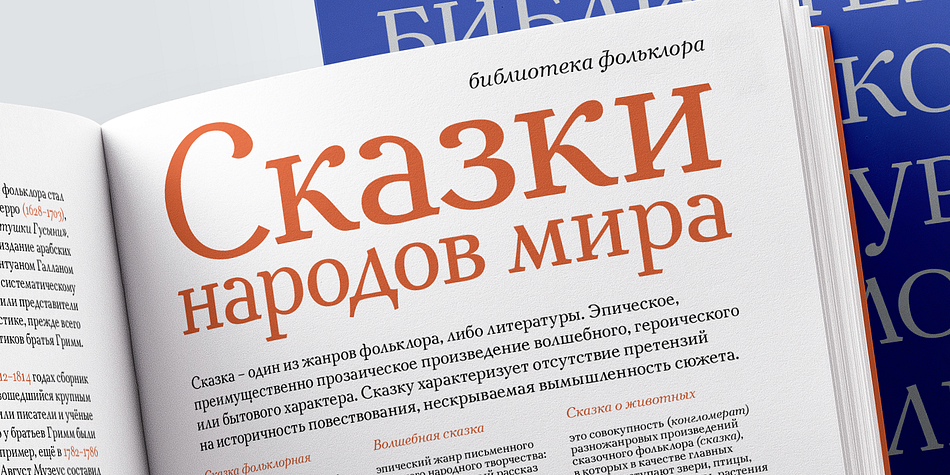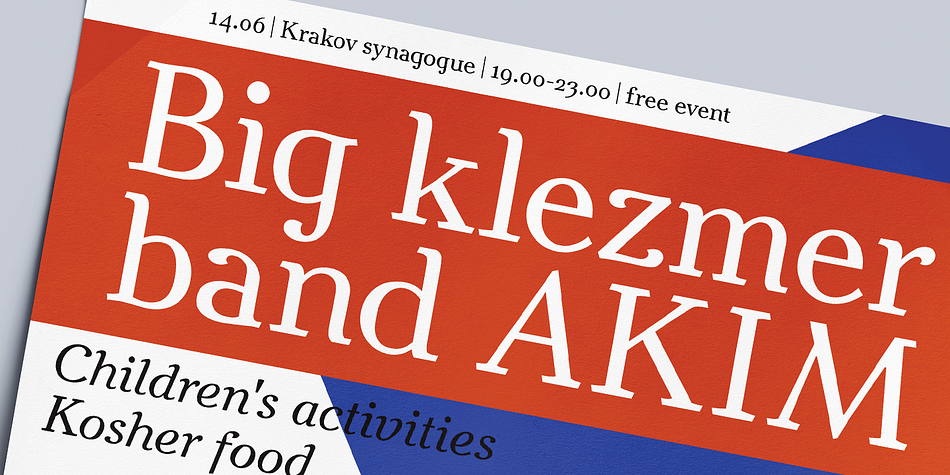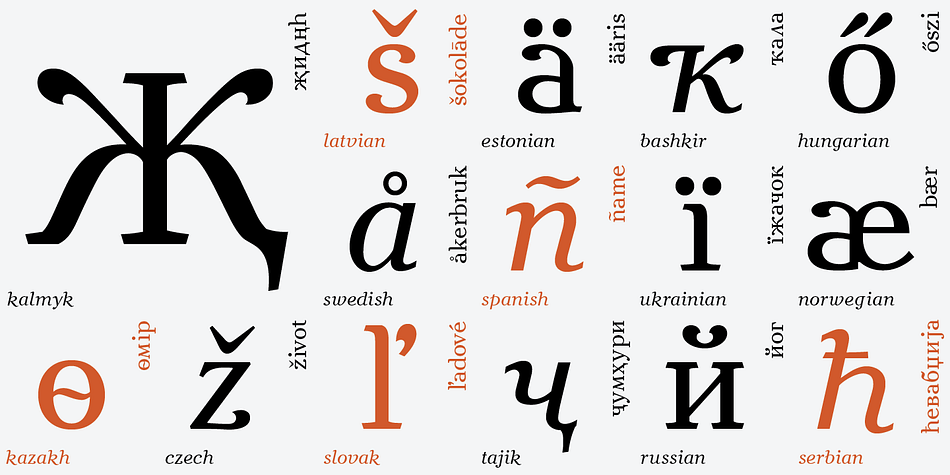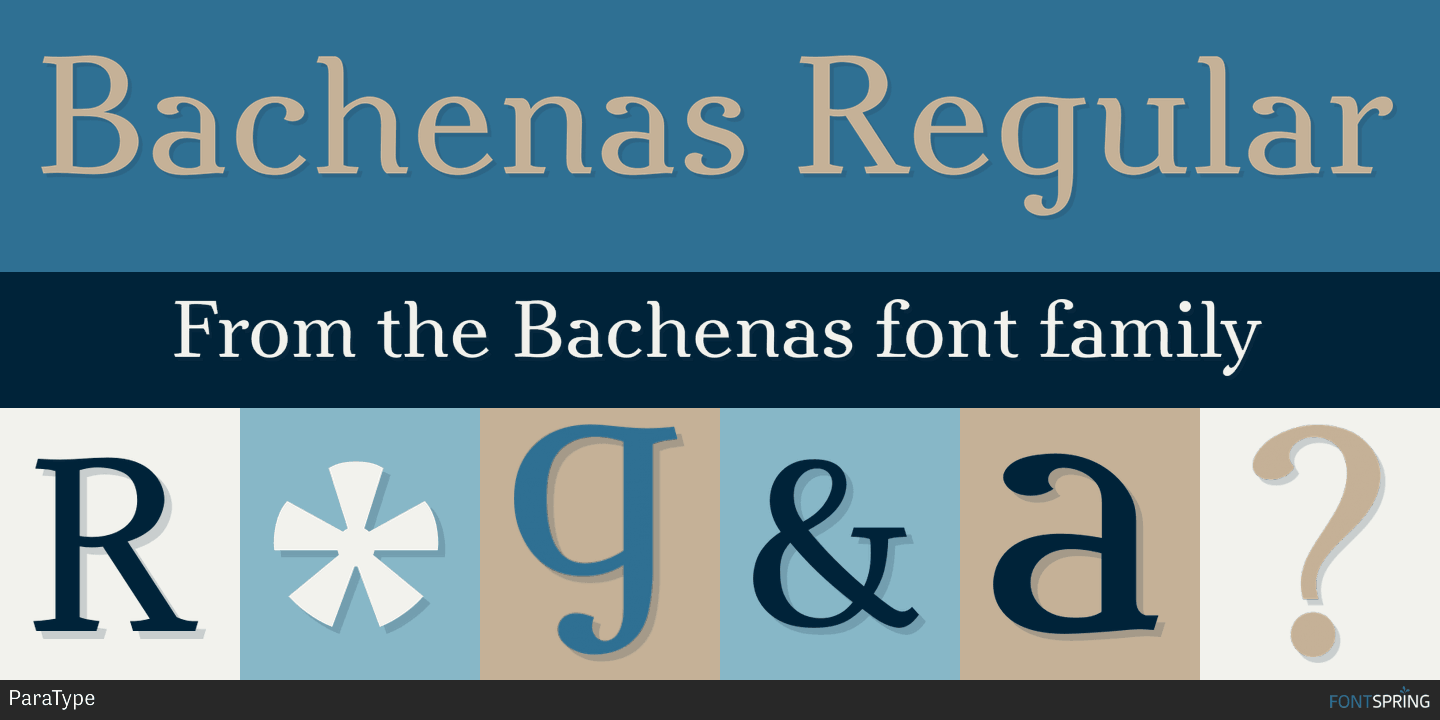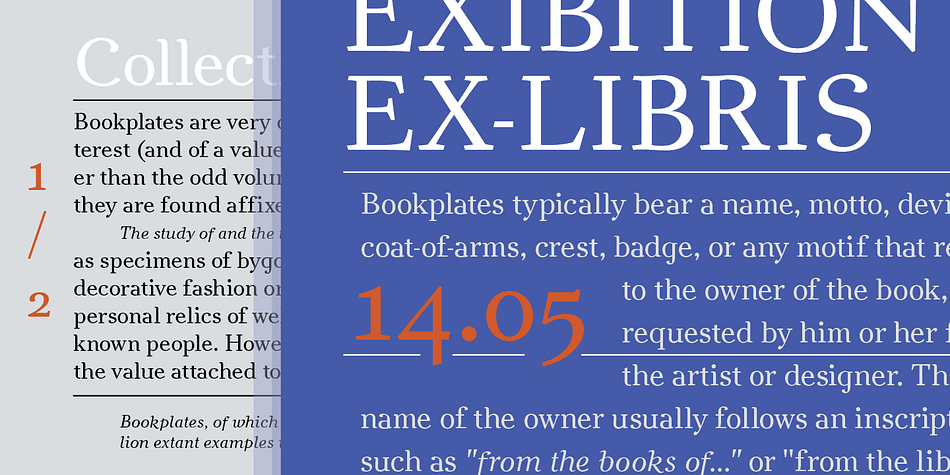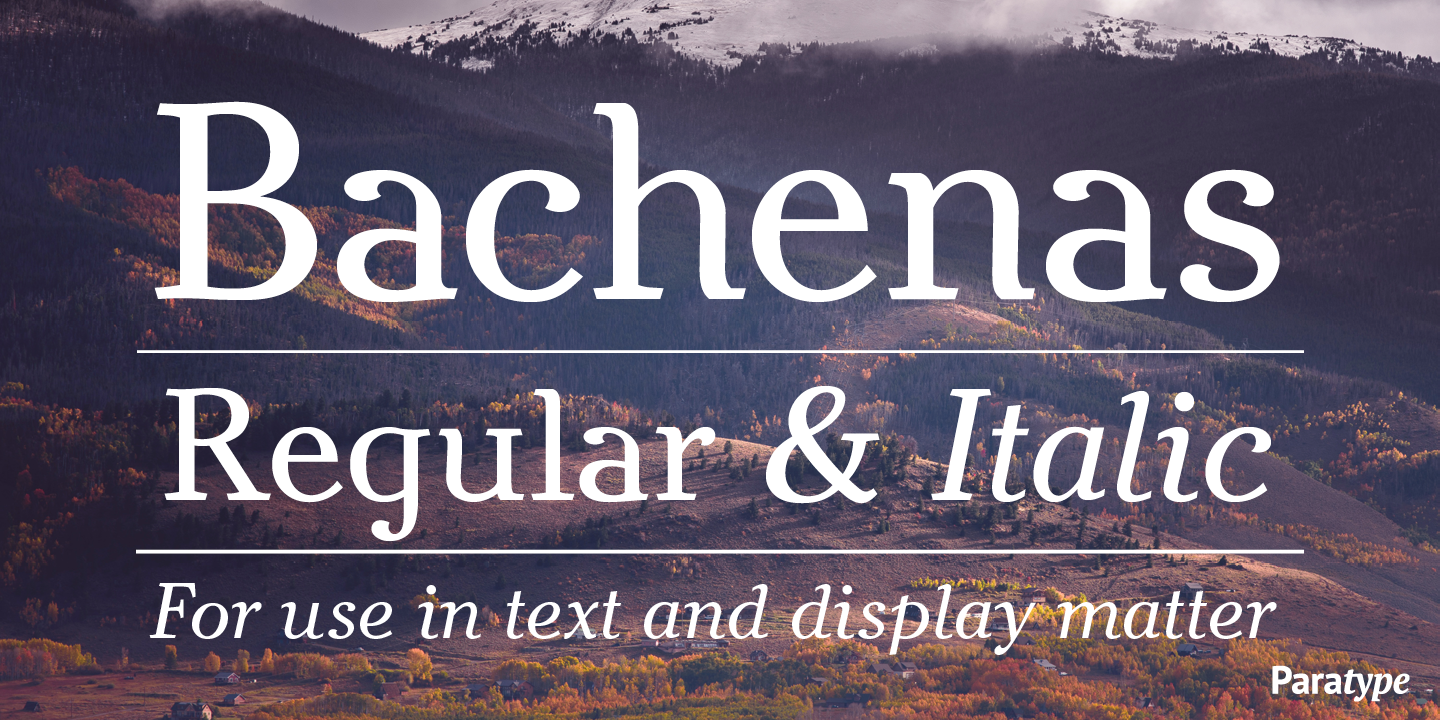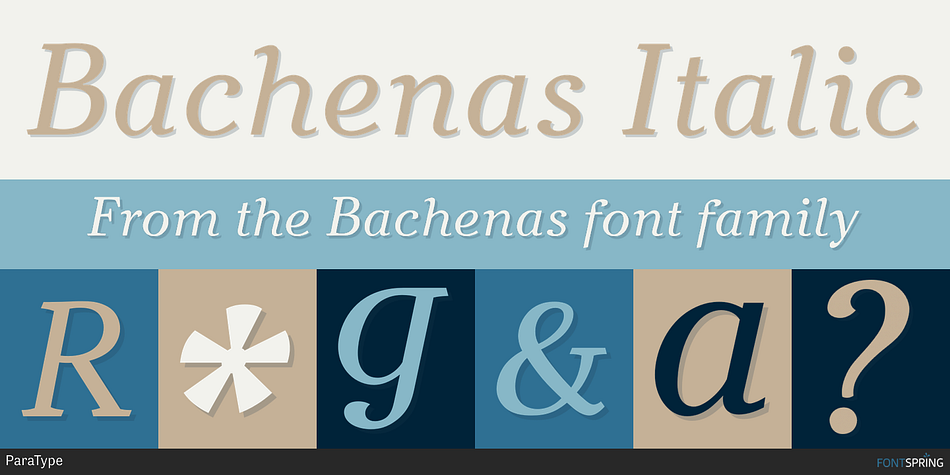
Designed by Lyubov Kuznetsova, Bachenas is a serif font family. This typeface has two styles and was published by ParaType.
The typeface was designed for Polygraphmash type design bureau in 1963 by Lithuanian book and type designer Vitoldas Bachenas. There is a low-contrast Serif with some unusual elements. For use in text and display matter. The digital version was developed for ParaType in 2003 by Lyubov Kuznetsova.